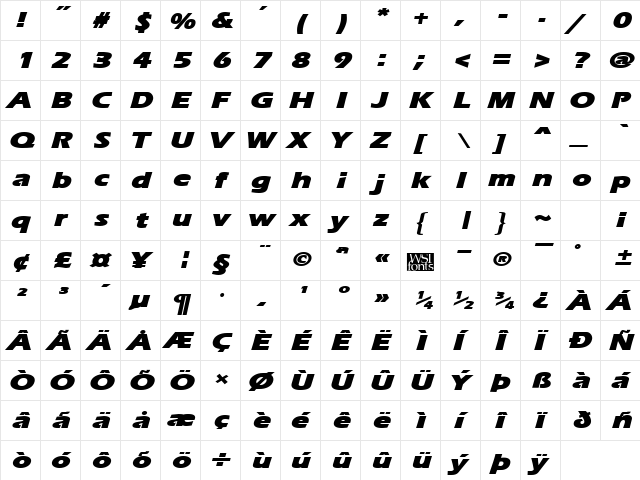
ErgoeMildBlackExpanded Italic
Design Context for ErgoeMildBlackExpanded Typeface
ErgoeMildBlackExpanded is a composed and adaptable typeface that performs quietly and consistently across a wide range of design contexts. The dynamic lean of this cut emphasises speed and emphasis in any layout.
Pro Tip: Try ErgoeMildBlackExpanded for annotation and caption copy alongside an upright companion — the contrast in angle creates a dynamic but ordered typographic system.